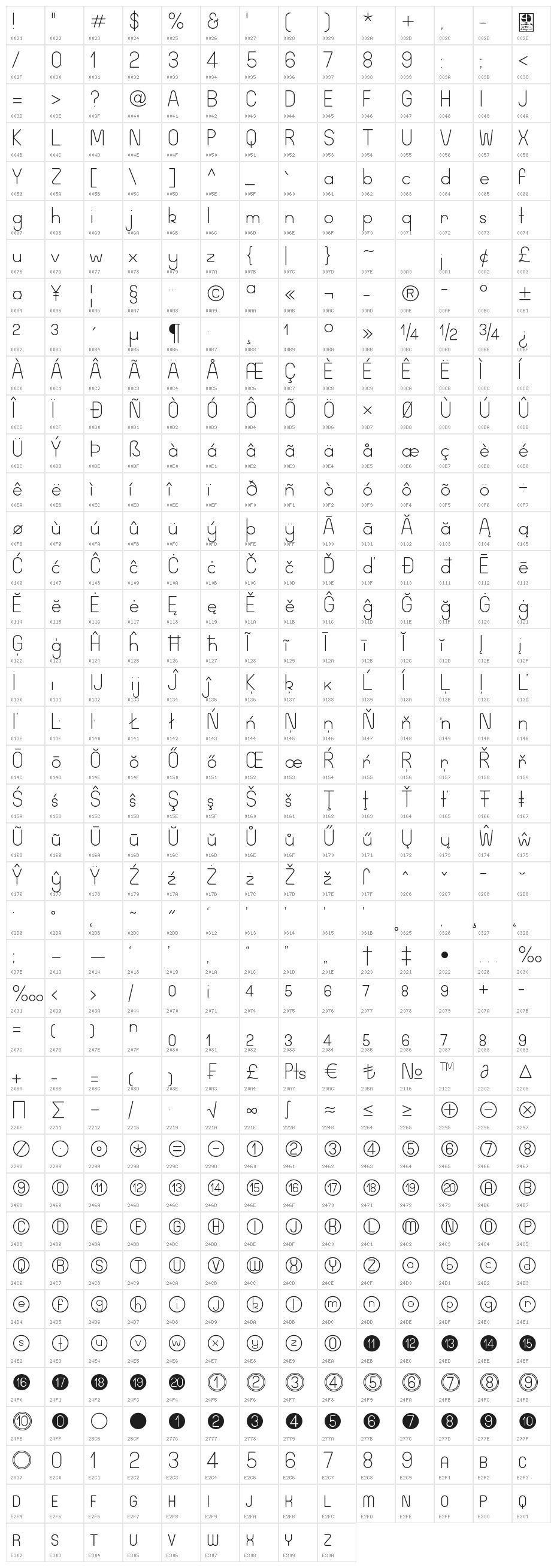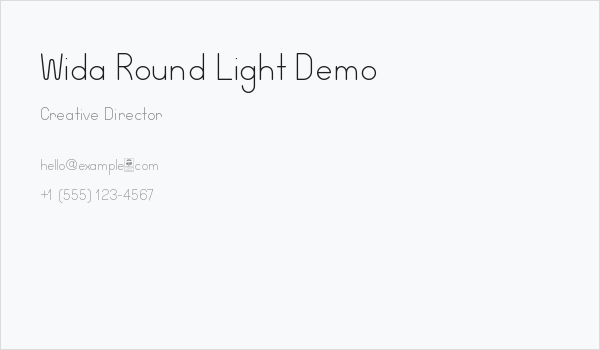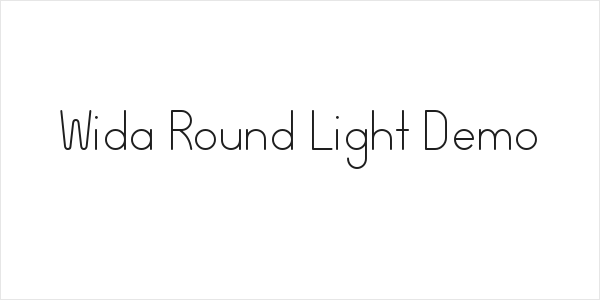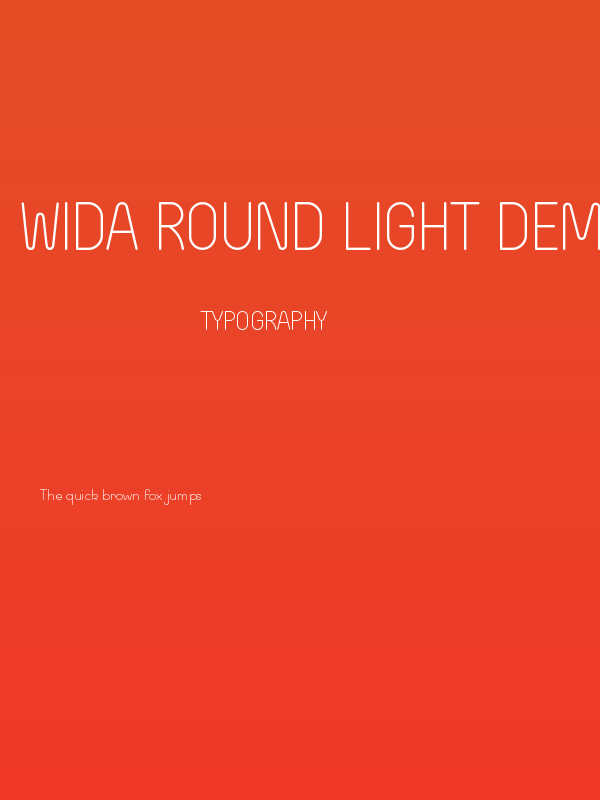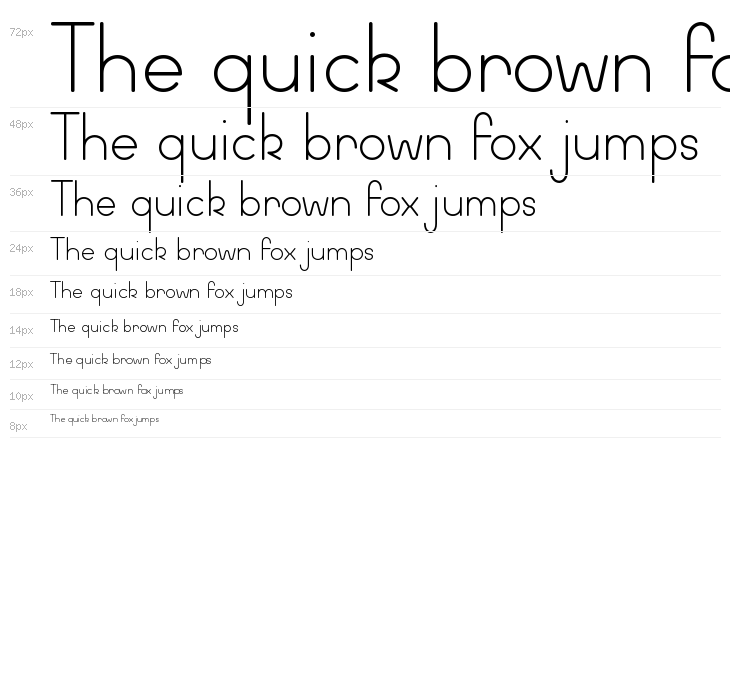
Wida Round Light Demo Font
Wida Round Light Demo Description
This font features a clean and modern design with rounded edges, giving it a friendly and approachable appearance. The characters are evenly spaced, contributing to its readability. The uppercase and lowercase letters maintain a consistent style, with smooth curves and a uniform stroke width. The numerals and special characters are designed to complement the alphabet, ensuring a cohesive look across all text elements. Its simplicity and clarity make it suitable for a wide range of applications, from digital interfaces to print media.
| Proposed Projects | Ideal for branding, user interfaces, children's books, and educational materials. |